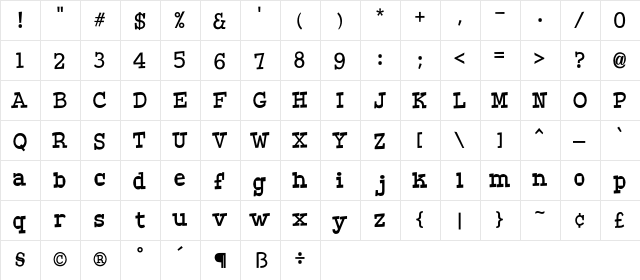
KuntryCombo 3-in-1 Font Preview
KuntryCombo 3-in-1
Design Context for KuntryCombo Typeface
KuntryCombo takes a measured approach to typography — its balanced proportions and neutral character make it a reliable workhorse for both digital and print work.